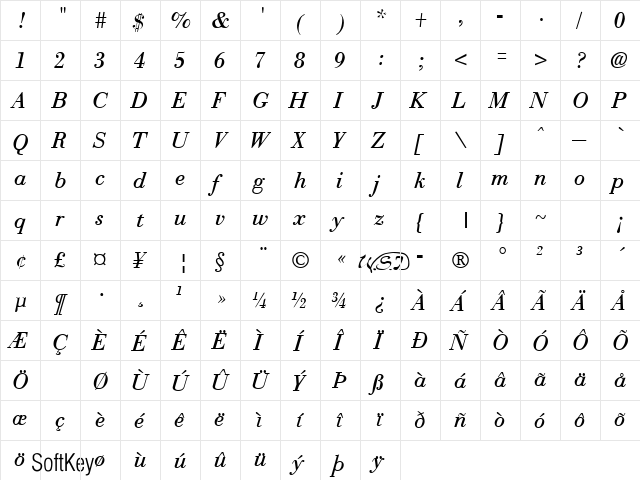
Boston Italic
Design Context for Boston Typeface
Boston offers clean, dependable letterforms without strong stylistic allegiance, making it a practical choice for designers who need flexibility. The slanted form adds forward momentum and visual energy.
Pro Tip: Try Boston for annotation and caption copy alongside an upright companion — the contrast in angle creates a dynamic but ordered typographic system.